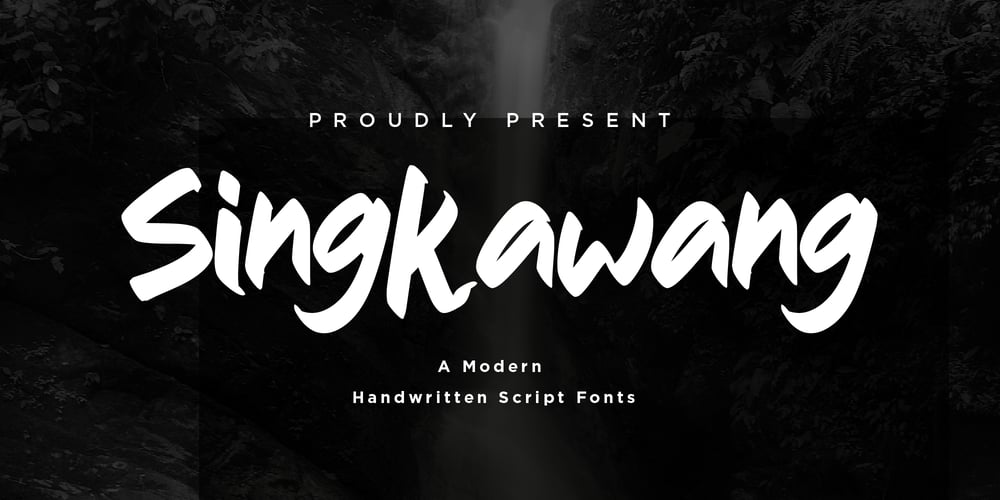
Singkawang Font Family was designed by Ahmad Cahyono and published by Velocitype. Singkawang contains 1 styles and family package options. Singkawang – Handwritten Script fontsSingkawang is a Handwritten Script font, will be suitable for any projects such as branding, promotional ads, quotes design, merchandise, social media and much more. make your work or your business to high level!!! special events, and all your other lovely projects that need beautiful handwriting taste. Features : Uppercase & Lowercase Numerals Punctuations (OpenType Standard) Accents (Multilingual Characters) Works on PC & Mac Simple installations Accessible in the Adobe Illustrator, Adobe Photoshop, Adobe InDesign, even works on Microsoft Word. I hope you enjoy this font. If you have any questions please don’t hesitate to drop me a message :)Thank you